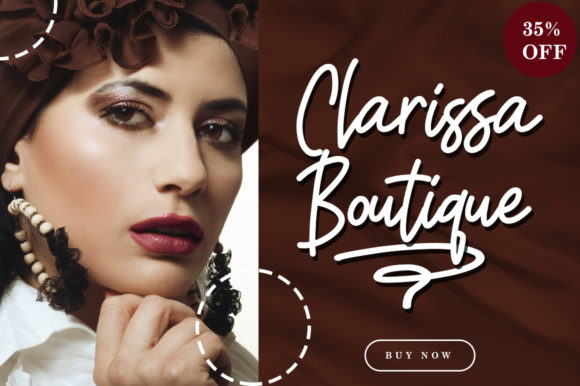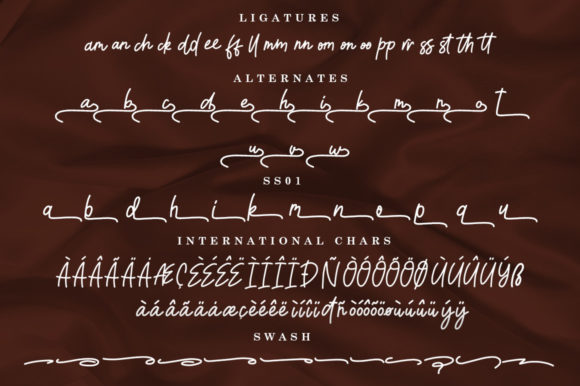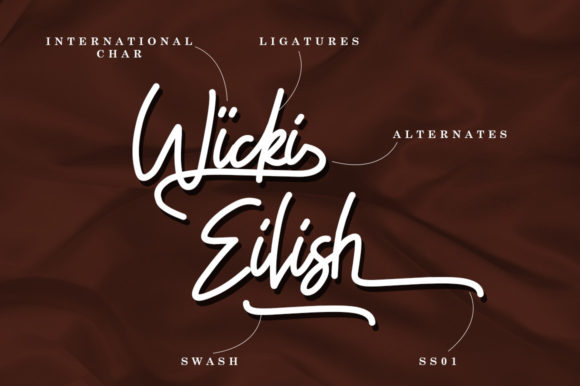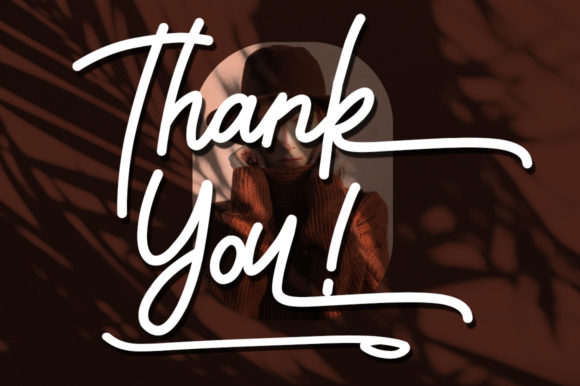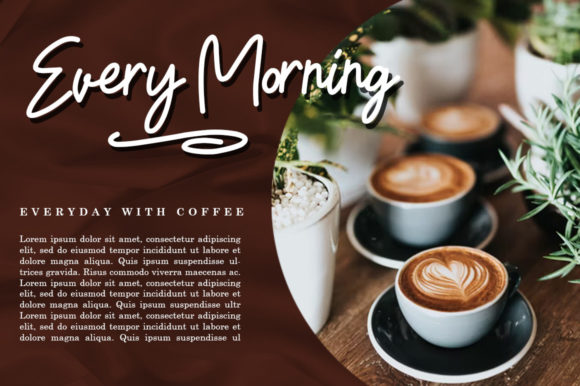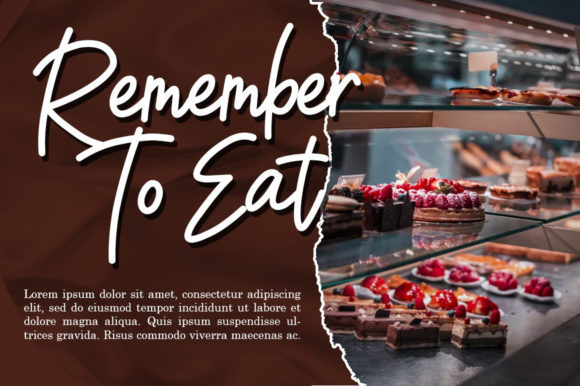
Willonaline Font
About Willonaline Font
Willonaline is a simple, modern, quirky, and adaptable handwritten font. You can successfully add this elegant font on wedding invitations, business cards, greetings cards, social media posts, wall art, and more. This font is PUA encoded which means you can access all of the glyphs and swashes with ease!